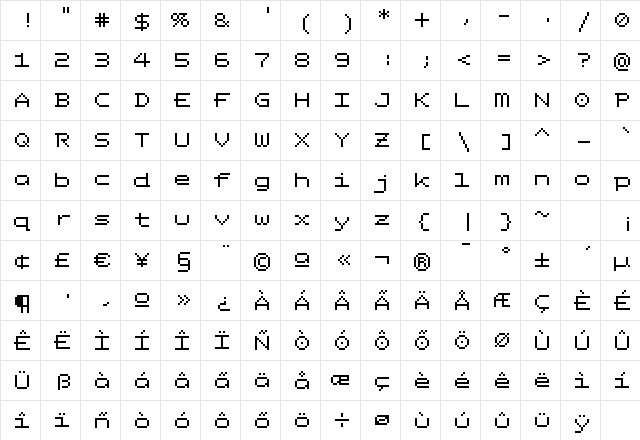
Attitude SpacedOut Regular
Design Context for Attitude SpacedOut Typeface
Attitude SpacedOut is a composed and adaptable typeface that performs quietly and consistently across a wide range of design contexts.
Pro Tip: Pair Attitude SpacedOut with a font of contrasting weight or personality to build a more expressive typographic hierarchy.